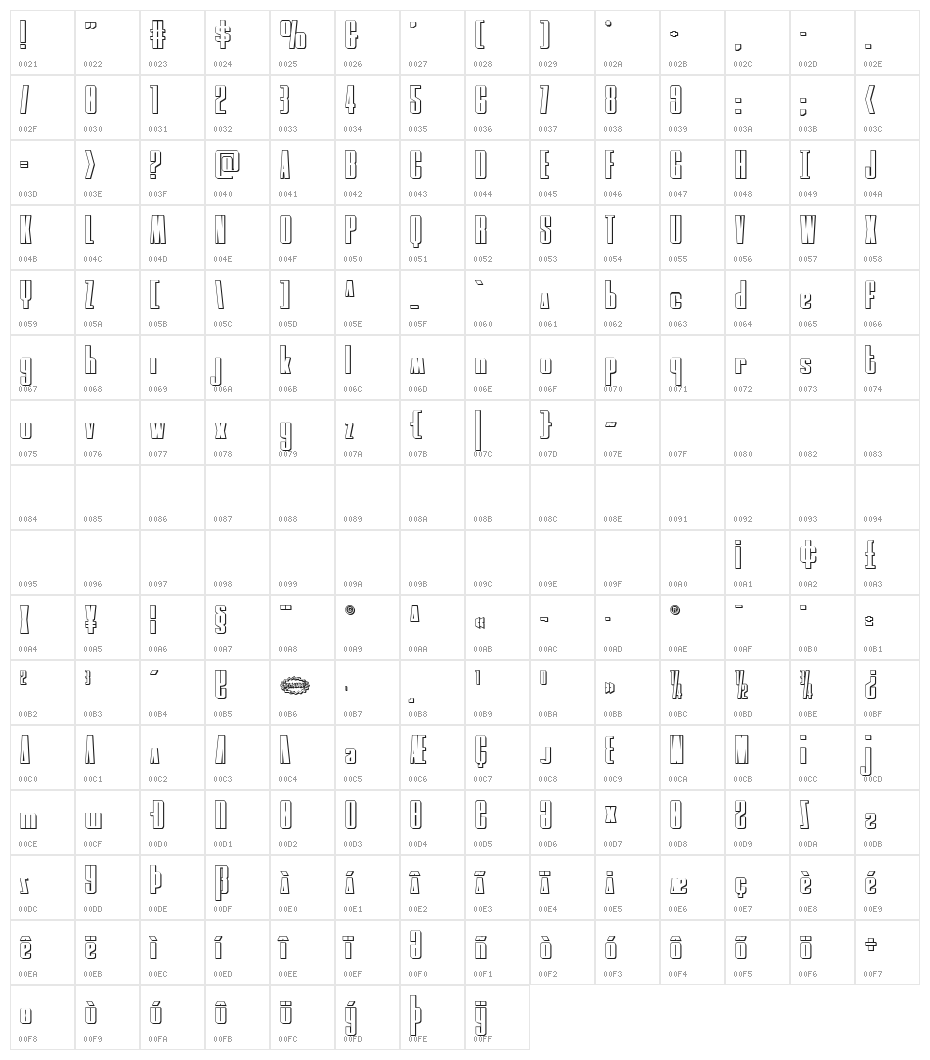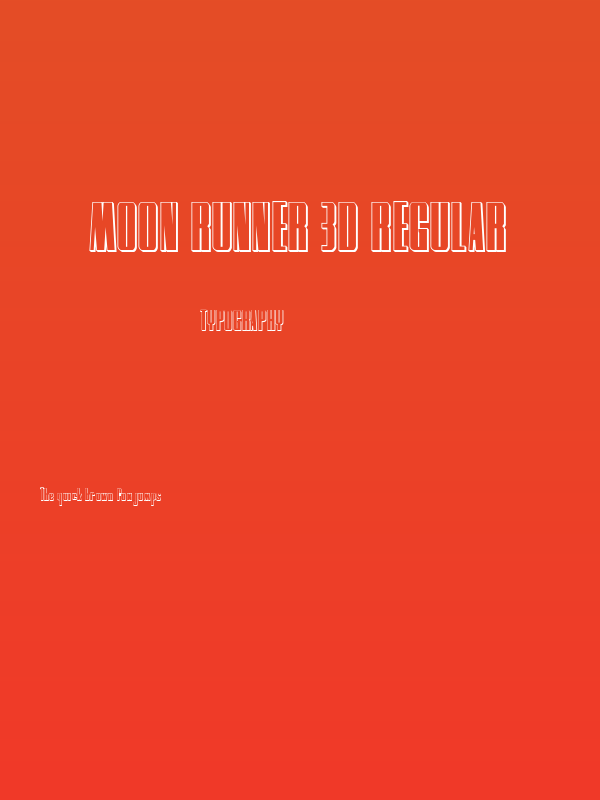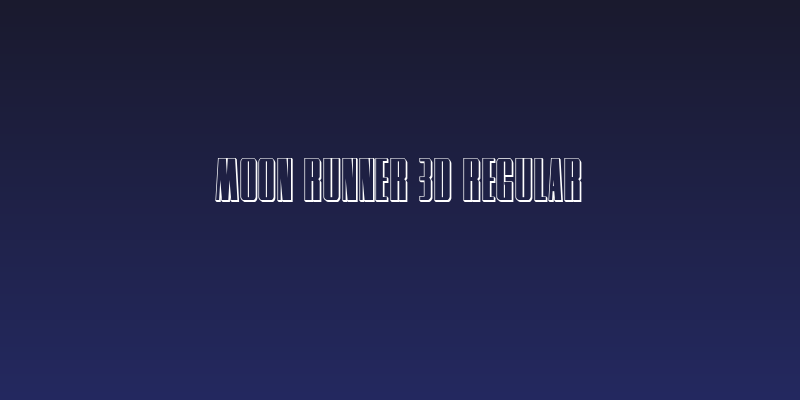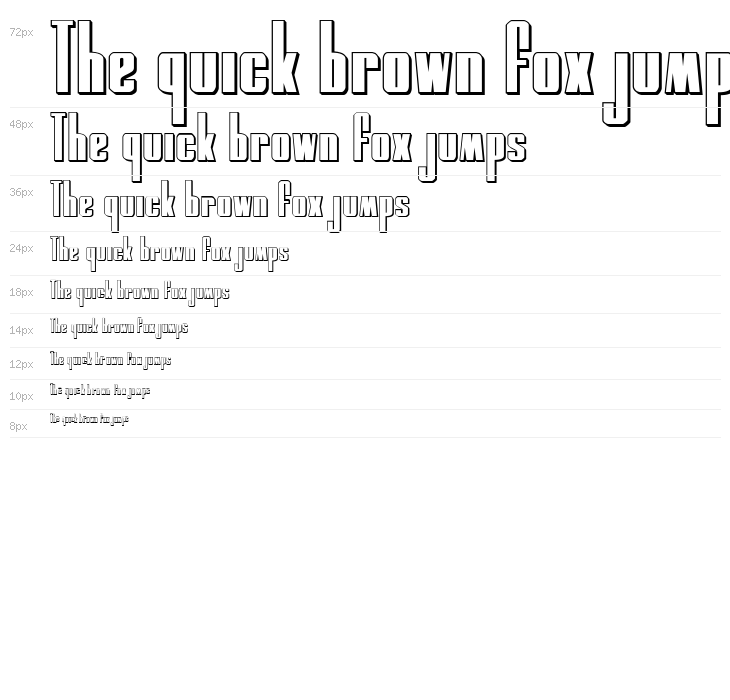
MOON Runner 3D Regular Font
MOON Runner 3D Regular Description
This font features a bold, three-dimensional appearance with a strong, impactful presence. The uppercase letters are tall and narrow, with a distinct shadow effect that gives a sense of depth. The lowercase letters maintain a similar style, ensuring consistency across the typeface. Numbers and special characters are designed to match the bold and dynamic aesthetic, making them stand out. The overall design is modern and eye-catching, suitable for projects that require a strong visual impact.
| Proposed Projects | Ideal for posters, headlines, video game titles, and branding materials that require a striking and modern look. |